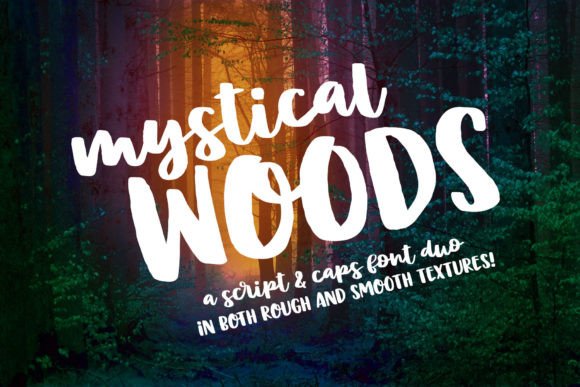
Mystical Woods: A Hand-Crafted Font Duo
There's a special magic in a design that feels genuinely hand-made, and the Mystical Woods font duo captures that essence perfectly. This premium font family is born from the authentic texture of ink and brush on paper, offering designers a versatile tool for projects that demand a personal, artistic touch. Whether you're crafting a brand identity, designing eye-catching packaging, or creating standout social media graphics, this typeface provides the character and flexibility to elevate your work.
At its heart, Mystical Woods is a script and caps font duo that embraces its organic origins. The creation process started with a traditional approach, using ink and a brush to form each letter. This resulted in the Rough variants, which retain a subtle, textured character without jagged edges, perfect for designs that want to feel authentic and hand-crafted. For projects requiring crisp, clean lines—like intricate vinyl cut designs or refined logos—the Smooth variants offer the same stylistic foundation with every curve and line meticulously refined.
Creative Flexibility for Every Project
One of the most compelling features of this display font is its inherent mixability. Because the script and caps styles were created with the same tools and artistic hand, you can seamlessly blend them. Imagine a logo where the main wordmark uses the elegant Mystical Woods Smooth Script, supported by a tagline in the complementary Rough Caps. This pairing creates visual harmony and depth that feels intentional and sophisticated.
The font family includes four distinct styles, giving you full creative control:
Each style comes equipped with a comprehensive character set, including over 300 extended Latin characters for robust language support. The script fonts also feature 45 double-letter ligatures, ensuring a natural, fluid flow in text that mimics real handwriting. All characters are PUA-encoded, guaranteeing easy access in any design software, which is a significant practical benefit for a commercial font.
Practical Applications and Design Tips
Choosing the right creative font is about matching mood to function. Mystical Woods excels in contexts where personality and artistry are key. Consider it for:
When integrating this handwritten font into your projects, always test for readability, especially at smaller sizes. The smooth variants generally offer clearer legibility for body text or smaller applications, while the rough styles shine in larger headings. A valuable design tip is to pair it with a simple, clean sans serif or serif font for body copy to maintain visual balance and hierarchy. This contrast allows the unique character of Mystical Woods to be the star without overwhelming the entire composition.